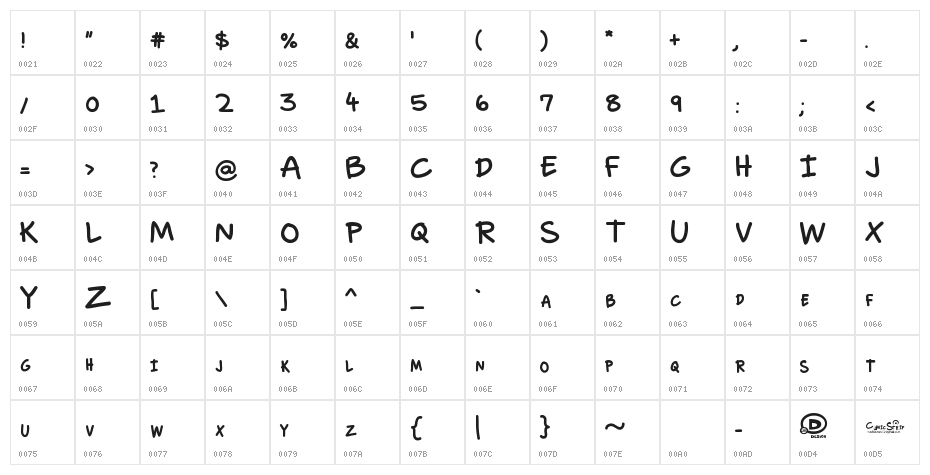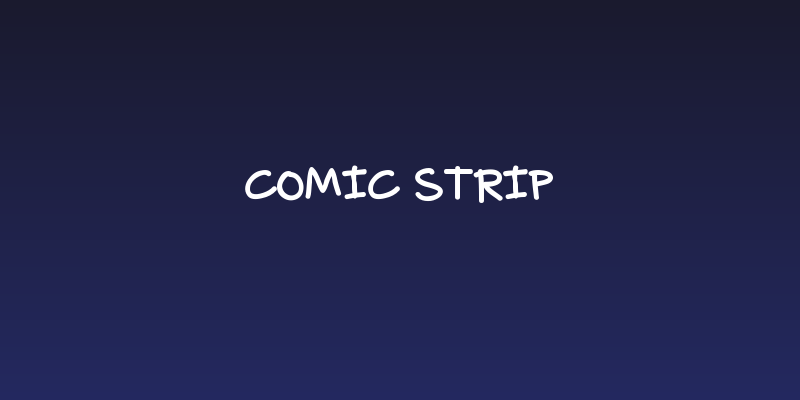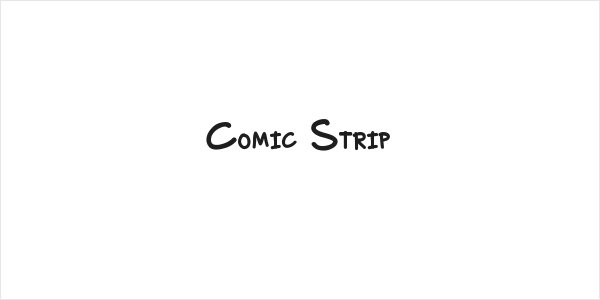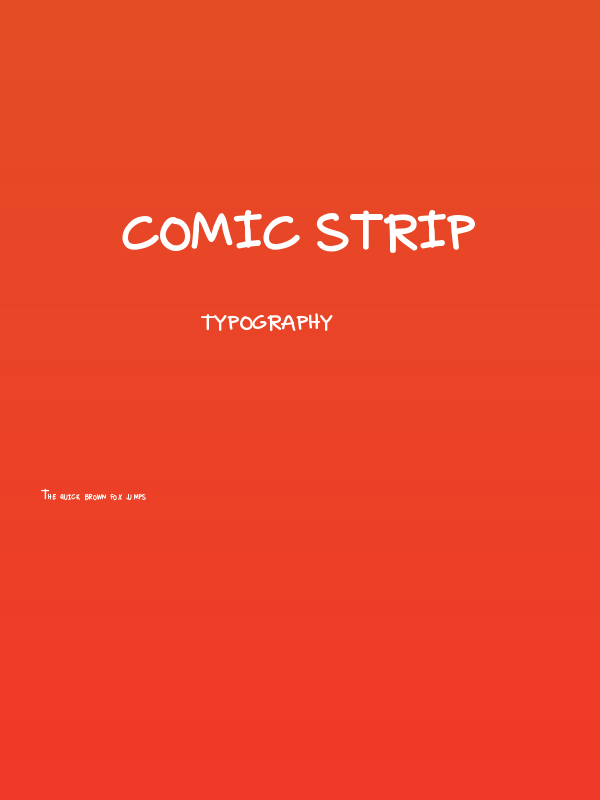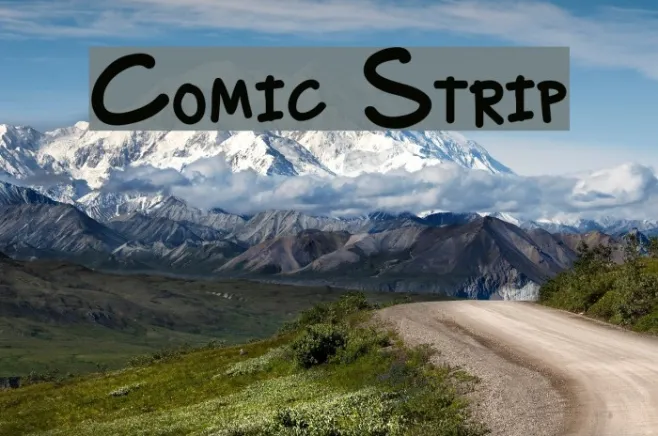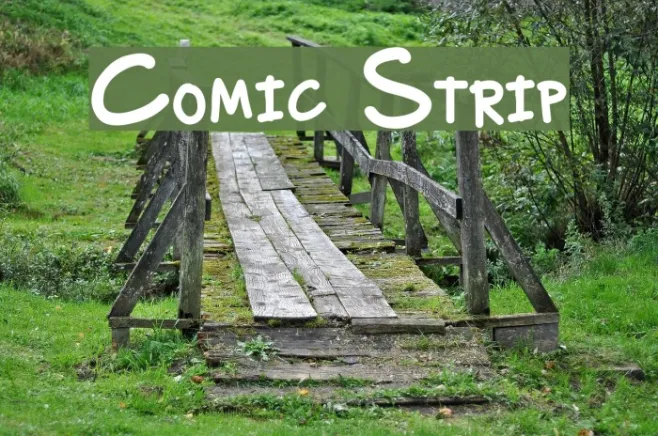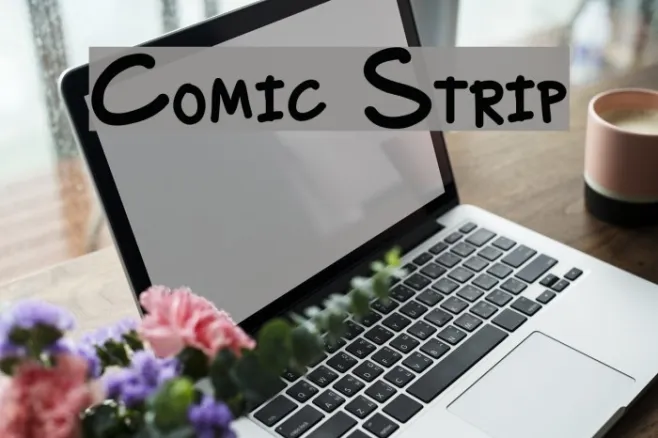
Comic Strip Font
Comic Strip Description
This playful and informal font features a hand-drawn, comic-style appearance. The letters are bold and rounded, with a slightly irregular baseline that adds to its casual charm. The strokes are consistent in thickness, giving it a uniform look despite its whimsical nature. The characters are well-spaced, ensuring readability while maintaining a fun and lively aesthetic. This font is perfect for projects that aim to convey a sense of humor or lightheartedness, such as comic strips, children's books, or playful branding materials.
| Proposed Projects | Ideal for comic strips, children's books, playful branding, and casual invitations. |